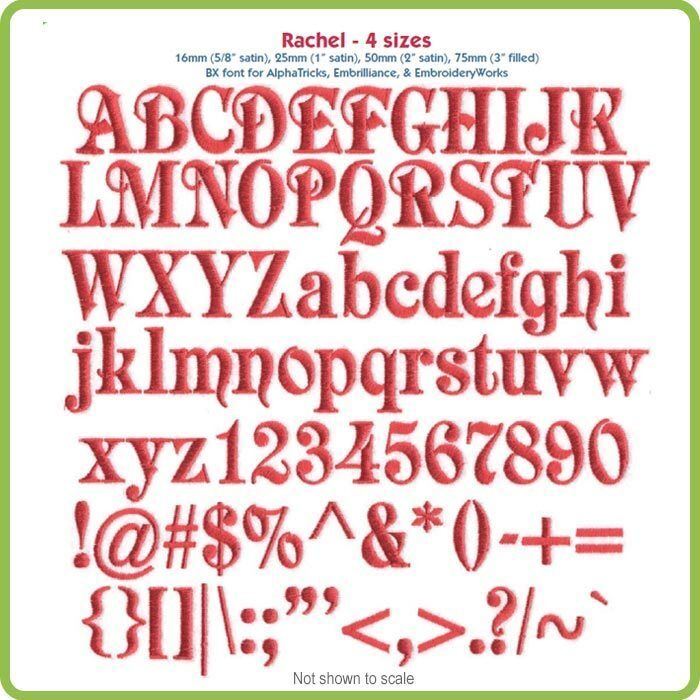
Rachel Font Bundle – 4 sizes: 16mm, 25mm, 50mm, 75mm (included designs are not available individually)
Collection Notes:  Rachel is an Art Nouveau decorative serif font that includes A-Z, a-z, 0-9, and the following punctuation: ~!@#$%&()-[]:;"',.?/ in 4 sizes: 16mm (5/8" satin), 25mm (1" satin), 50mm (2" satin), 75mm (3" filled).